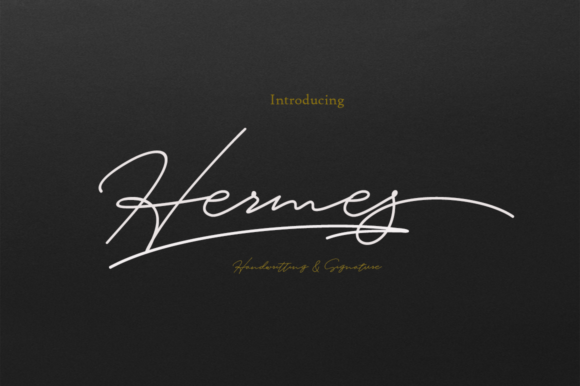
Hermes Font Download Script Fonts: The Hermes Font is a graceful monoline signature typeface that blends the charm of handwritten calligraphy with the clean consistency of a single stroke weight. Its flowing curves and balanced spacing make it ideal for projects where a personal, human touch matters without sacrificing elegance or readability.
Whether you’re designing wedding invitations, crafting a brand signature, or creating stylish quotes for social media, Hermes delivers a refined yet approachable look. Its design draws inspiration from authentic penmanship, where each stroke feels intentional, smooth, and expressive.
Characteristics of Hermes Font
Monoline Structure
Each character is drawn with a consistent line weight, giving it a harmonious and polished appearance. Unlike fonts that vary in thickness, Hermes maintains a steady rhythm, which makes it versatile for both small and large text sizes. -
Signature Style
Hermes mimics natural handwriting in a way that feels intimate and genuine. The letterforms have subtle flourishes without becoming overly ornate, making it suitable for modern and minimal designs. -
Calligraphic Influence
The font takes cues from traditional calligraphy, balancing elegance with legibility. The curves flow smoothly, giving the text a relaxed yet professional feel. -
Ligatures and Alternates
Many versions of Hermes Font come with stylistic alternates and ligatures, allowing designers to add variation and authenticity to their text layouts.
Best Uses for Hermes Font
Hermes is one of those fonts that adapts well across multiple creative projects. Here are some popular applications:
Branding & Logos
Ideal for boutique brands, fashion labels, and creative businesses that want a handwritten identity. The smooth monoline strokes can look luxurious while staying approachable. -
Wedding & Event Stationery
Invitations, menus, and save-the-date cards come alive with Hermes, adding a personal warmth that complements formal occasions. -
Social Media Graphics
Quotes, Instagram highlights, and story covers benefit from its signature charm, helping posts stand out in a visually crowded space. -
Packaging Design
Perfect for handmade or artisanal products—Hermes conveys craftsmanship and authenticity. -
Personal Signatures
Digital watermarks, email signatures, or personal branding elements can use Hermes to create a stylish, recognizable mark.
Tips for Using Hermes Font Effectively
Pair with Simplicity
Since Hermes is decorative in nature, pair it with a clean sans serif or serif font for body text. This balance ensures your design is elegant but still easy to read. -
Use Proper Spacing
Adjust letter spacing (kerning) for headlines or signatures to achieve the right visual flow. Slightly tighter spacing can make it look more like real handwriting. -
Play with Color
Soft tones like beige, blush, or gold work beautifully with Hermes for elegant themes, while bolder shades can make it pop in modern designs. -
Mind the Size
It’s best showcased at larger sizes where its details can be appreciated—avoid using it for long paragraphs.
Similar Fonts to Hermes
1. What makes Hermes Font different from other signature fonts?
Hermes stands out because of its monoline consistency. Many signature fonts vary in thickness to mimic brush strokes, but Hermes maintains a single, elegant stroke weight, which gives it a more polished and contemporary feel.
3. Does Hermes Font support special characters?
Most versions come with extended Latin characters, punctuation, and sometimes ligatures or alternates. Check the font’s character map before downloading to confirm.
4. Is Hermes good for body text?
No, it’s better suited for short phrases, titles, or signatures. Its decorative style can make long paragraphs harder to read.
Final Thoughts
The Hermes Font blends the artistry of handwritten calligraphy with the neat consistency of monoline design. It’s the perfect balance between personal expression and professional refinement, making it a go-to choice for designers who want to add warmth, elegance, and individuality to their work.
Whether you’re branding a luxury product, designing wedding stationery, or creating content for social media, Hermes gives your project a signature touch that’s hard to forget.